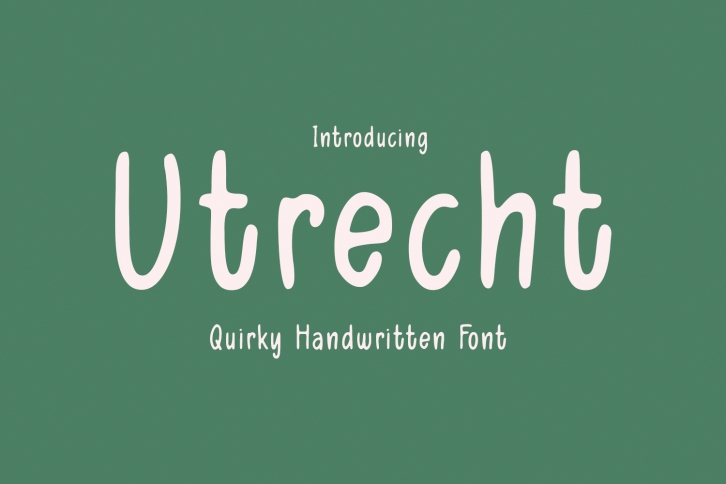
Utrecht is a gorgeous font that was realeased on December 10, 2019. The font can be used in many style contexts and design environments. Perfect for invitations, magazines, websites, logos, and more! It was designed by Cititype and the file size is 9.91 MB. Thanks for checking out this font!